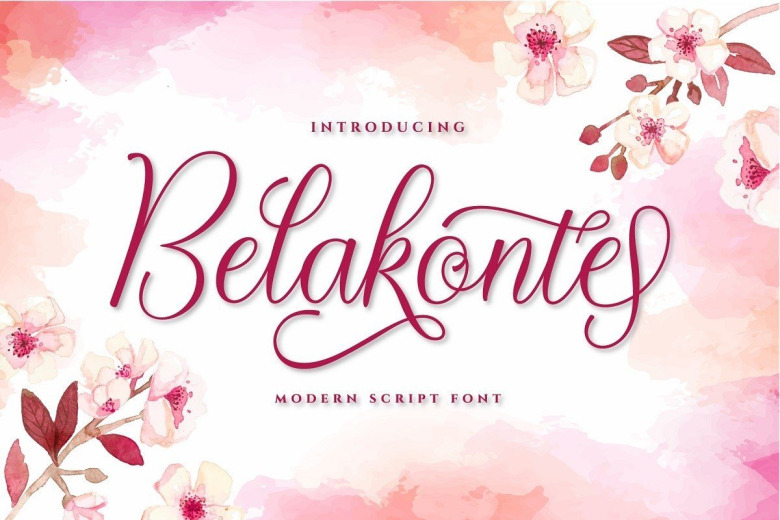
Belakonte Font
Belakonte Modern Script Font is an elegant and flowing calligraphy font. It is PUA encoded which means you can access all of the glyphs and swashes with ease! It features a varying baseline, smooth lines, gorgeous glyphs and stunning alternates.
It maintains its classy calligraphic influences while feeling contemporary and fresh. Fall in love with this font and bring your projects to the highest levels! This font is free for PERSONAL USE. Link to purchase full version and commercial license : HERE